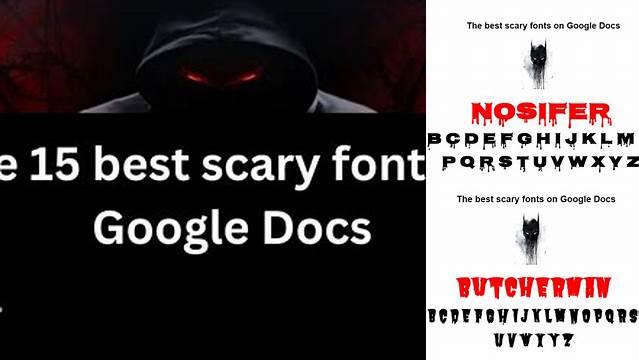
Scary Fonts In Google Docs: A Spooky Guide
Hey guys! Ever wanted to add a touch of horror to your Google Docs? Maybe you’re writing a spooky story, designing a Halloween invitation, or just feeling a little…creepy? Well, you’ve come to the right place! Adding scary fonts to your Google Docs is easier than you think, and this guide will walk you through everything you need to know. We’ll cover the basics of finding, installing, and using these fonts, so you can unleash your inner ghoul on your next document. Let's dive in and make your text scream!
1. Understanding Font Options in Google Docs
Before we jump into the specifics of scary fonts, it's important to understand the font options available in Google Docs. Google Docs comes with a decent selection of built-in fonts, but sometimes you need something a little more…extra. That's where adding custom fonts comes in! You can explore the pre-installed fonts by clicking on the font dropdown menu in the toolbar. You'll see a variety of styles, from classic to modern. However, if you're looking for truly scary fonts, you'll likely need to venture beyond the default options. Understanding how to access and manage these font options is the first step in creating your spooky masterpiece. Knowing what's available by default will also help you appreciate the impact of the more unique and frightening fonts you'll be adding. So, let’s get familiar with the basics before we unleash the horror!
2. Finding Scary Fonts Online
Alright, let's get to the good stuff! Finding scary fonts online is like treasure hunting in a digital graveyard. There are tons of websites out there offering free and premium fonts, but you need to know where to look. Some great places to start include websites like DaFont, FontSpace, and Google Fonts (yes, even Google Fonts has some hidden gems!). When searching, try using keywords like "horror fonts," "Halloween fonts," "creepy fonts," or "gothic fonts." You'll be amazed at the variety of options available. Remember to check the licensing information for each font, especially if you plan to use it for commercial purposes. Most free fonts are fine for personal use, but commercial use may require a license. Happy hunting, and may your search be filled with frightfully good finds!
5. Using Scary Fonts Effectively
Just because you can use scary fonts doesn't mean you should use them everywhere! Like any design element, fonts should be used strategically and effectively. Think about the context of your document. Is it a Halloween party invitation? A horror story? A creepy classroom handout? The tone and purpose of your document will help you decide which fonts to use and how to use them. For example, a super-intense font might be great for a title but overwhelming for body text. Try using a scary font sparingly, perhaps for headings or emphasized words, and pair it with a more readable font for the main content. This will make your document both visually striking and easy to read. Remember, the goal is to add a touch of creepiness, not to make your readers run screaming from the page (unless that’s the goal, of course!).
6. Best Scary Fonts for Google Docs
Okay, so you're ready to get spooky, but you're not sure where to start? Let’s talk about some of the best scary fonts for Google Docs. This is where personal preference comes into play, but there are definitely some fonts that are universally recognized as creepy. Think about fonts with jagged edges, dripping effects, or a gothic feel. Some popular choices include Nosferatu, Creepster, Blackwood Castle, and Bloodlust. These fonts instantly evoke a sense of horror and are perfect for Halloween or any project that needs a touch of the macabre. But don't stop there! Explore different font styles and see what resonates with you. Maybe a distressed sans-serif font will do the trick, or perhaps a handwritten font with a messy, uneven feel. The possibilities are endless, so get creative and experiment!
7. Pairing Scary Fonts with Other Fonts
One of the keys to using scary fonts effectively is pairing them with other fonts. You don't want your document to look like a chaotic mess of mismatched typefaces. Instead, aim for a balanced and cohesive look. Think about using a scary font for headings and titles, and then pairing it with a clean, readable font for the body text. For example, you could use a bold, gothic font like Blackwood Castle for your title and then use a simple sans-serif font like Arial or Open Sans for the main paragraphs. This will ensure that your document is both visually striking and easy to read. Another approach is to pair a highly stylized scary font with a more subtle, distressed font. This can create a layered and textured look that adds depth to your design. The key is to experiment and see what works best for your specific project.
8. Using Different Font Sizes for Emphasis
Font size is your friend when it comes to emphasizing certain parts of your text. When using scary fonts, think about how size can enhance the spooky effect. A large, bold font can make a title or heading really stand out, while a smaller font can be used for more subtle details. For example, you might use a large, dripping font for the title of your horror story and then use a slightly smaller, jagged font for subheadings. This creates a visual hierarchy that guides the reader's eye and adds to the overall creepy atmosphere. Experiment with different font sizes to see what works best for your design. Don't be afraid to go big and bold – after all, we're aiming for scary here! But remember to maintain balance and ensure that your text is still readable. A good rule of thumb is to use a larger font size for headings and titles and a smaller font size for body text.
9. Adding Font Colors to Enhance the Spookiness
Font color is another powerful tool in your spooky arsenal. When using scary fonts, think about how color can enhance the overall effect. Black and red are classic horror colors, but don't be afraid to experiment with other shades as well. A dark, blood-red font can be incredibly striking, especially when used against a light background. A dark gray or even a deep purple can also create a creepy and mysterious atmosphere. Consider the overall tone of your document and choose colors that complement your fonts and theme. For example, if you're designing a Halloween invitation, you might use orange and black fonts against a dark background. If you're writing a gothic horror story, you might stick to darker, more muted colors. The key is to use color strategically to add to the spooky effect without making your document look cluttered or overwhelming. Remember, a little color can go a long way!
10. Font Effects: Shadows and Outlines
Let's talk about font effects! Adding shadows and outlines to your scary fonts can really take them to the next level. These effects can add depth and dimension to your text, making it look even more striking and dramatic. Shadows can create a sense of unease and mystery, while outlines can make your text pop against a dark background. Experiment with different shadow and outline colors to see what works best for your design. A black shadow on a red font can create a blood-soaked effect, while a white outline on a black font can make your text look ghostly and ethereal. Google Docs doesn't offer built-in shadow and outline effects for fonts directly, but you can achieve similar results by using the Drawing tool. Create a text box, type your text, choose your scary font, and then add a shadow or outline to the text box itself. It might take a little extra effort, but the results are totally worth it!
11. Using Text Boxes for Creative Font Placement
Speaking of text boxes, they're your secret weapon for creative font placement in Google Docs. Sometimes, you want your scary fonts to appear in unexpected places, or you want to overlap text and images. That's where text boxes come in handy! You can insert a text box anywhere in your document and then position it exactly where you want it. This allows you to create unique and eye-catching designs that wouldn't be possible with regular text formatting. For example, you could use a text box to place a scary font title diagonally across your page, or you could overlap a text box with an image to create a layered effect. Text boxes also give you more control over the positioning and size of your text. You can resize and move them around until you get the perfect look. So, don't be afraid to experiment with text boxes and see how they can enhance your spooky designs!
12. Incorporating Images with Scary Fonts
Images and scary fonts are a match made in horror heaven! Combining spooky typography with creepy visuals can create a truly terrifying effect. Think about adding images of haunted houses, graveyards, bats, spiders, or anything else that evokes a sense of fear and dread. You can use images as backgrounds, place them alongside your text, or even incorporate them into your font designs. For example, you could use a splatter of blood as a background for your title, or you could place a ghostly image behind your text to create a layered effect. When choosing images, make sure they complement your fonts and overall theme. A dark, grainy image can enhance the creepy atmosphere, while a brightly colored image might clash with your scary fonts. Remember to use high-quality images that are appropriate for your project. And, of course, make sure you have the rights to use any images you include in your document.
13. Creating a Spooky Document Background
A spooky document background is like the foundation of your horror masterpiece. It sets the tone and mood for your entire document and can really enhance the effect of your scary fonts. Think about using dark colors like black, gray, or deep purple for your background. You can also use textures and patterns to add visual interest. A subtle grunge texture can create a sense of decay and age, while a spiderweb pattern can add a creepy touch. Google Docs doesn't have a built-in background feature, but you can achieve a similar effect by inserting an image as a background. Simply insert an image, resize it to fill the page, and then set the image wrapping option to “Behind text.” This will place the image behind your text and allow you to create a custom background. Just make sure your background doesn't overpower your text. You want your fonts to be the star of the show, so choose a background that complements them without being too distracting.
14. Adding Watermarks for a Ghostly Effect
Watermarks can add a subtle yet effective ghostly touch to your document. A faint watermark of a creepy image or word can create a sense of unease and mystery without being too overpowering. Think about using images of ghosts, skulls, or other spooky symbols as your watermark. You can also use words like “CONFIDENTIAL,” “DO NOT READ,” or “SCARY” to add to the effect. Google Docs doesn't have a dedicated watermark feature, but you can achieve a similar result by inserting an image and setting its transparency to a low level. Simply insert an image, resize it to the desired size and position, and then adjust the transparency slider in the image options. This will create a faint watermark that appears behind your text. Experiment with different transparency levels to get the perfect look. You want your watermark to be visible, but not so prominent that it distracts from your main content. This technique can really elevate the spooky vibe of your document!
15. Using Horror-Themed Templates in Google Docs
If you're looking for a quick and easy way to create a spooky document, consider using horror-themed templates in Google Docs. While Google Docs doesn't have a specific category for horror templates, you can find some great options by searching online. Many websites offer free Google Docs templates for Halloween invitations, spooky stories, and other creepy projects. These templates often come pre-designed with scary fonts, backgrounds, and images, so all you have to do is customize the text and add your own personal touches. Using a template can save you a lot of time and effort, especially if you're not a design expert. It's a great way to get a professional-looking document without having to start from scratch. Just remember to choose a template that fits your specific needs and style. And don't be afraid to tweak the design and make it your own. Templates are a great starting point, but you can always add your own creativity and flair!
16. Creating a Halloween Party Invitation
Let's get practical! One of the best uses for scary fonts is creating a Halloween party invitation. You want your invitation to be eye-catching and spooky, so it's the perfect opportunity to unleash your inner ghoul. Start by choosing a creepy font for your headline and other important details. Think about using fonts with dripping effects, jagged edges, or a gothic feel. Then, add some spooky images, like pumpkins, ghosts, or bats. A dark background can also enhance the creepy atmosphere. Don't forget to include all the essential information, like the date, time, location, and RSVP details. You can also add a fun dress code or a spooky theme to your party. Remember to keep your invitation concise and easy to read. You want your guests to be excited about your party, not confused by your design. A well-designed Halloween invitation can set the tone for a fantastic and frightful event!
17. Writing a Creepy Short Story
If you're a writer, scary fonts can be a powerful tool for creating a creepy short story. The fonts you use can help set the tone and mood of your story, drawing the reader into your world of horror. Think about using a font that reflects the genre and style of your story. A gothic font can be perfect for a classic horror tale, while a handwritten font with a messy feel can add a sense of realism and unease. Use different font sizes and styles to emphasize certain words and phrases. A bold, large font can make a title or heading stand out, while a smaller, subtle font can create a sense of suspense. Don't forget to use other formatting tools, like italics and bold text, to add emphasis and drama. Remember, the goal is to create a reading experience that is both terrifying and captivating. Your font choices can play a significant role in achieving that goal!
18. Designing a Spooky Poster
Creating a spooky poster? Scary fonts are essential! A poster needs to grab attention and convey a message quickly, so your font choices are crucial. Think about the theme of your poster and choose fonts that match. If you're promoting a haunted house, a dripping, jagged font might be perfect. If you're advertising a gothic-themed event, a classic gothic font could be a great choice. Use a large, bold font for your headline to make it stand out. You can also use different font sizes and styles to create visual hierarchy and emphasize key information. Don't forget to consider the color of your fonts and background. A dark font on a light background is generally easier to read, but a light font on a dark background can create a more dramatic and spooky effect. Experiment with different combinations to see what works best for your design. And remember, less is often more. Don't clutter your poster with too many fonts or images. A clean, well-designed poster with the right fonts can be incredibly effective!
19. Creating a Creepy Presentation
Presentations don't have to be boring! If you want to create a truly memorable presentation, think about using scary fonts to add a touch of creepiness. This is especially effective for presentations on topics like horror movies, Halloween, or even suspenseful business strategies. Start by choosing a font that is both scary and readable. You don't want your audience to struggle to understand your slides. Use a larger font size for your headings and a smaller font size for your body text. This will help create visual hierarchy and make your slides easier to scan. Consider using different font colors and styles to highlight key points. A bold, red font can draw attention to important information, while a dark font on a light background can improve readability. Don't forget to use images and graphics to enhance your presentation. A spooky image can add a lot of impact to your slides. Just remember to use your scary fonts sparingly and strategically. You want to create a presentation that is engaging and informative, not overwhelming or distracting.
20. Designing a Horror-Themed Game
Designing a horror-themed game? Scary fonts are a must-have! The fonts you use in your game can help set the tone and atmosphere, creating a sense of fear and suspense. Think about the style of your game and choose fonts that match. A gothic font might be perfect for a classic horror game, while a pixelated font could be ideal for a retro-style horror game. Use different font sizes and styles to emphasize different elements of your game, like the title, menu options, and dialogue. A large, bold font can make the title screen stand out, while a smaller, more subtle font can be used for the game's text. Consider using different font colors and effects to add visual interest. A glowing font can create a sense of mystery, while a dripping font can add a touch of gore. Don't forget to test your fonts in the game to make sure they are readable and don't clash with the other visual elements. The right fonts can make your horror game truly terrifying!
21. Legal Considerations for Using Scary Fonts
Before you go wild with your scary fonts, let's talk about legal stuff. Not all fonts are free for every use. Many fonts come with specific licenses that dictate how you can use them. If you're using a font for personal projects, like a Halloween party invitation for friends, you're usually in the clear. But if you're using a font for commercial purposes, like a poster you're selling or a logo for your business, you need to make sure you have the right license. Most font websites, like DaFont and FontSpace, clearly state the license information for each font. Look for terms like “Free for personal use” or “Commercial license required.” If you're not sure about the licensing terms, it's always best to err on the side of caution and contact the font designer or foundry. Using a font without the proper license can lead to legal trouble, so it's important to do your research and make sure you're following the rules. Play it safe, and your spooky creations will be both scary and legal!
22. Troubleshooting Font Issues in Google Docs
Sometimes, things don't go as planned. You've installed your scary font, added it to Google Docs, but… it's not showing up! Don't panic! Font issues are common, and there are usually simple solutions. First, make sure you've actually installed the font on your computer. Double-check the installation steps for your operating system. Next, try refreshing your Google Docs page. Sometimes, a quick refresh is all it takes to make a new font appear. If that doesn't work, try clearing your browser's cache and cookies. This can sometimes resolve font conflicts. If you're still having trouble, make sure the font file is compatible with Google Docs. Google Docs supports TrueType (.ttf) and OpenType (.otf) fonts. If you're using a different font format, it might not work. Finally, if all else fails, try restarting your computer. This can often resolve more stubborn font issues. With a little troubleshooting, you'll be back to creating spooky masterpieces in no time!
23. Exploring Different Font Foundries for Unique Options
Want to find truly unique scary fonts? Venture beyond the popular font websites and explore different font foundries. Font foundries are companies or individual designers that create and sell fonts. Some foundries specialize in specific styles, like horror or gothic, so they're a great place to find unique and high-quality options. Some well-known font foundries include Hoefler&Co, Monotype, and Adobe Fonts. You can also find many independent font designers on websites like Creative Market and MyFonts. Exploring different foundries can help you discover fonts that you won't find anywhere else. This can give your designs a distinctive and original look. Keep in mind that fonts from foundries often come with a price tag, but the investment can be worth it if you're looking for exceptional quality and unique designs. So, take a dive into the world of font foundries and see what spooky treasures you can uncover!
24. Font Alternatives for Google Docs
Sometimes, you might not find the exact scary font you're looking for, or you might need a backup option. That's where font alternatives come in handy. A font alternative is a similar font that you can use in place of your first choice. This is especially useful if you're collaborating with others who might not have the same fonts installed on their computers. Google Fonts offers a wide variety of free fonts, and many of them are great alternatives for popular scary fonts. For example, if you're looking for a gothic font, you might try UnifrakturMaguntia or IM Fell DW Pica. If you need a dripping font, try Creepster or Mystery Quest. When choosing a font alternative, look for fonts that have similar characteristics to your original choice. Consider the font's style, weight, and overall appearance. A good font alternative will capture the essence of your original choice while still being readable and compatible with Google Docs. This ensures that your spooky designs will look great no matter who's viewing them!
25. Tips for Choosing the Right Scary Font
Choosing the right scary font can make or break your design. It's not just about finding a font that looks creepy; it's about finding a font that fits the tone, style, and purpose of your project. So, how do you choose the perfect font? First, consider the context of your document. Are you creating a Halloween invitation, a horror story, or a spooky poster? The font you choose should reflect the overall theme and mood. Think about the font's characteristics. Does it have jagged edges, dripping effects, or a gothic feel? These are all qualities that can contribute to a scary aesthetic. Consider the readability of the font. A font that is too stylized or decorative might be difficult to read, especially in large blocks of text. Choose a font that is both creepy and legible. Finally, don't be afraid to experiment. Try out different fonts and see what works best for your design. The more you explore, the better you'll become at choosing the right scary font for any project.
26. Font Psychology: How Scary Fonts Evoke Emotions
Fonts aren't just about aesthetics; they also have a psychological impact. Scary fonts, in particular, can evoke strong emotions like fear, suspense, and unease. This is because certain font characteristics trigger specific associations in our minds. For example, jagged edges and sharp angles can create a sense of danger and aggression. Dripping effects and blood-red colors can evoke feelings of gore and horror. Gothic fonts often conjure up images of castles, graveyards, and the supernatural. The psychology of fonts is a complex field, but understanding the basics can help you use fonts more effectively in your designs. When choosing a scary font, think about the emotions you want to evoke in your audience. Do you want to create a sense of fear, mystery, or dread? The font you choose can play a significant role in achieving your desired effect. So, choose wisely, and let your fonts speak to the deepest emotions of your readers!
27. Creating Font Combinations for a Spooky Effect
One scary font is good, but a combination of scary fonts can be even better! Creating interesting and effective font combinations is a key skill for any designer, and it's especially important when you're working with spooky themes. Think about using one font for headings and another font for body text. This can create visual hierarchy and make your document more readable. When choosing font combinations, look for fonts that complement each other. You might pair a highly stylized font with a more simple and readable font, or you might combine two fonts that share similar characteristics, like a gothic font and a distressed sans-serif font. The key is to create a balance between visual interest and readability. You want your fonts to be striking and spooky, but you also want your text to be easy to read. Experiment with different combinations and see what works best for your design. Don't be afraid to break the rules and try something unexpected. Sometimes, the most creative font combinations are the ones that you wouldn't expect!
28. The Future of Scary Fonts in Digital Design
The world of scary fonts is constantly evolving. As digital design tools and technologies advance, new and exciting possibilities are emerging. We're seeing more innovative font styles, like 3D fonts, animated fonts, and even interactive fonts that respond to user input. These advancements are opening up new avenues for creating truly immersive and terrifying experiences. Think about the potential of a font that drips blood as you scroll down the page, or a font that flickers and changes shape like a ghostly apparition. As virtual reality and augmented reality become more mainstream, we're likely to see even more creative uses for scary fonts in digital design. The future of scary fonts is all about pushing the boundaries of what's possible and creating designs that are not only visually striking but also emotionally impactful. So, get ready to be spooked – the best is yet to come!
29. DIY Scary Fonts: Creating Your Own Creepy Typefaces
Feeling extra creative? Why not try creating your own scary fonts? It might sound intimidating, but with the right tools and a little practice, you can design your own unique and creepy typefaces. There are many font creation software programs available, both free and paid, that can help you bring your font ideas to life. Some popular options include FontForge, BirdFont, and Glyphs. Creating a font involves designing each letter, number, and symbol individually. This can be a time-consuming process, but it's also incredibly rewarding. Think about the characteristics you want your font to have. Do you want it to be jagged, dripping, or gothic? Sketch out your ideas on paper first, then use the font creation software to translate your sketches into digital form. Don't be afraid to experiment and try different things. The best way to learn is by doing. And who knows, maybe your DIY scary font will become the next big thing in horror design!
30. Inspiring Examples of Scary Font Usage in Pop Culture
Finally, let's take a look at some inspiring examples of scary font usage in pop culture. From horror movie posters to video game titles, scary fonts have played a significant role in creating iconic and memorable designs. Think about the classic horror movie posters for films like “Psycho,” “The Exorcist,” and “Halloween.” These posters often feature bold, jagged fonts that instantly evoke a sense of fear and suspense. In the world of video games, titles like “Resident Evil,” “Silent Hill,” and “Dead Space” use scary fonts to create a dark and unsettling atmosphere. Even book covers and album art often employ scary fonts to convey a sense of horror or mystery. Studying these examples can give you valuable insights into how to use scary fonts effectively in your own designs. Pay attention to the font styles, sizes, colors, and placement, and think about how these elements contribute to the overall impact of the design. By learning from the masters of horror design, you can create your own terrifyingly awesome creations!